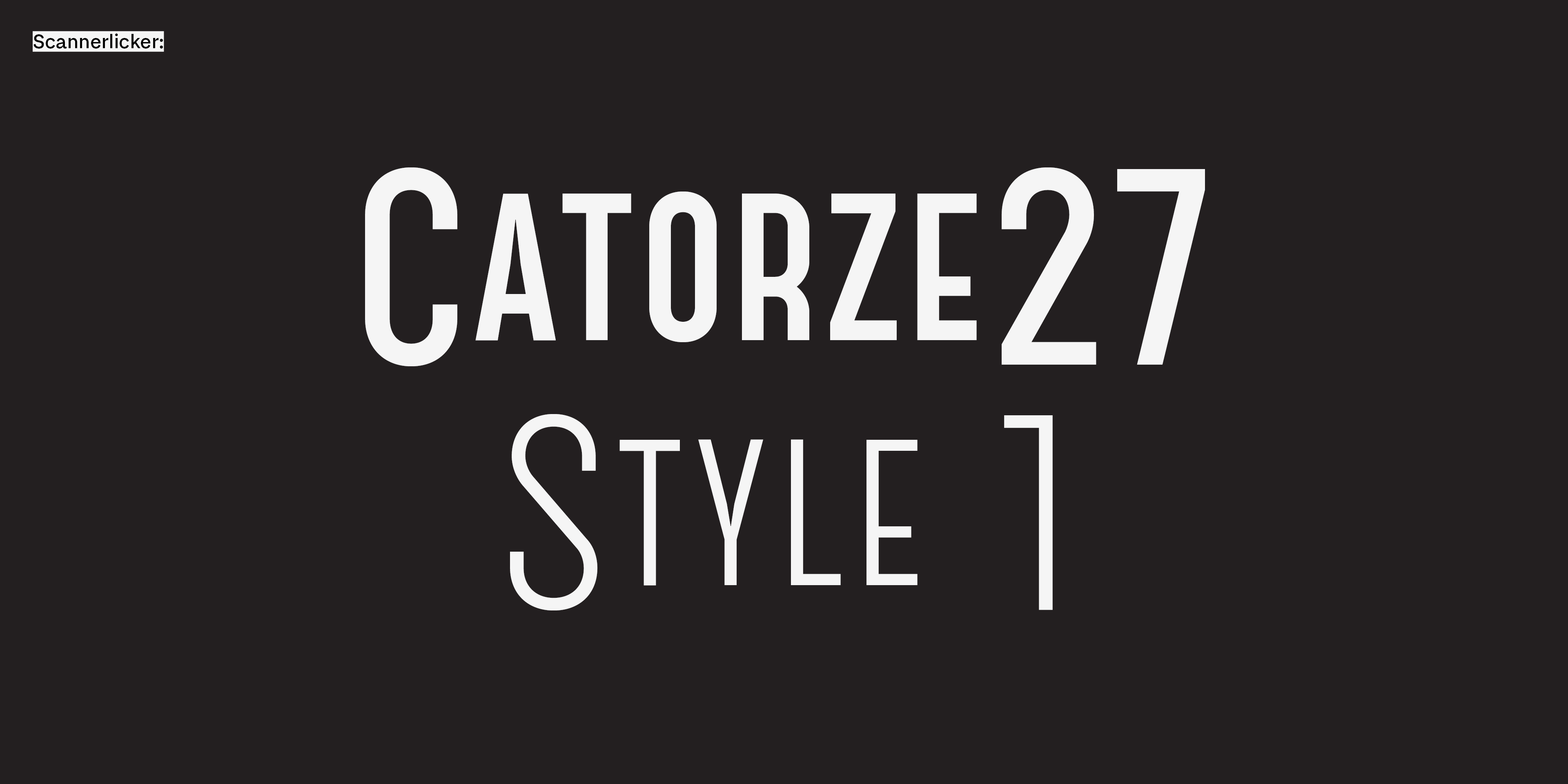
Catorze27 Style 1 Font is perfect for contemporary art galleries, modern architectural firms, minimalist lifestyle brands, cutting-edge design studios, avant-garde fashion labels, progressive tech startups, conceptual art exhibitions, and sophisticated urban campaigns.
This font is exciting because it represents pure artistic innovation with avant-garde sophistication and contemporary creative expression. Catorze27 Style 1 Font features experimental letterforms with artistic geometry that push the boundaries of traditional typography, making it ideal for projects that require groundbreaking design and forward-thinking aesthetic vision.
The Catorze27 Style 1 Font family includes regular, light, bold, and experimental variants, along with artistic alternates and conceptual ligatures that enhance its avant-garde character. Each weight maintains the font's innovative aesthetic while providing different levels of creative expression for various artistic and contemporary design applications.
Whether you're developing cutting-edge creative brands, creating revolutionary art materials, or designing progressive cultural campaigns, Catorze27 Style 1 Font Free Download delivers exceptional innovation and artistic appeal. Its distinctive experimental style makes it an excellent choice for designers seeking to add genuine artistic vision and contemporary sophistication to their projects. The font's versatility extends from gallery exhibition materials to conceptual design portfolios, ensuring consistent performance across all avant-garde applications. With its artistically crafted letterforms and experimental proportions, this typeface provides professional results that challenge conventions and establish innovative brand presence with its unmistakable artistic character and contemporary creative sophistication.